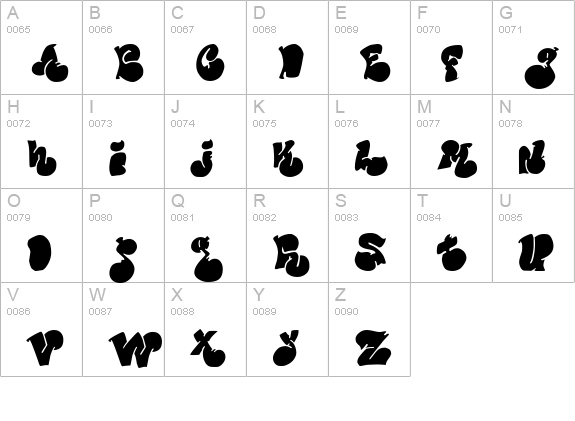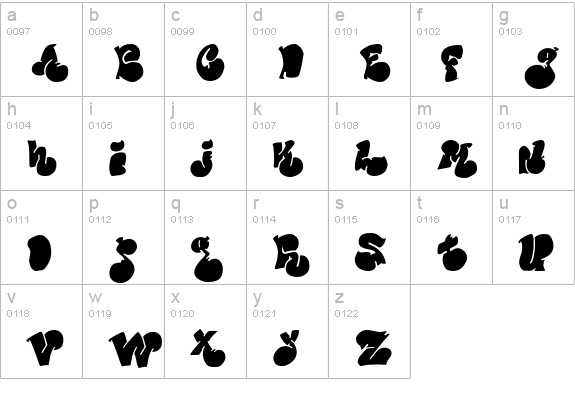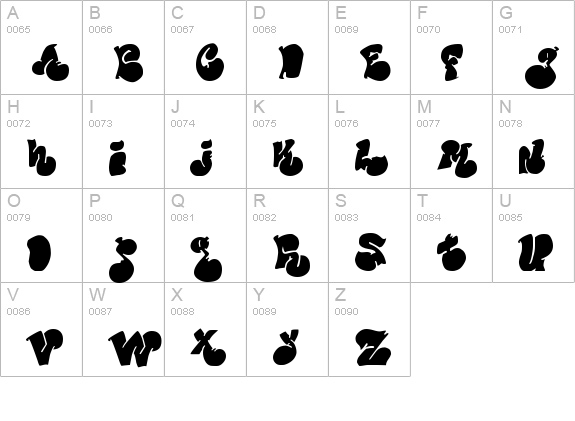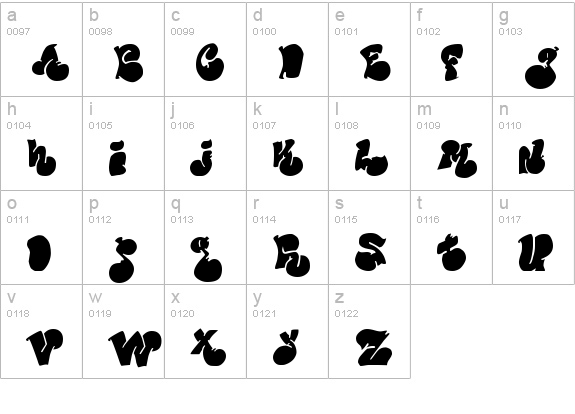
Political Graft Fill Font Details
Political Graft Fill font is a bold and eye-catching typeface designed for making a powerful statement with your text. Its unique design combines elements of modernity and tradition, making it suitable for a wide range of projects, from posters to logos to social media graphics. The font features intricate details and a strong presence that commands attention. What sets Political Graft Fill font apart is not only its striking appearance but also the fact that it is freely available to download at FontsMarket.com. This means you can add this dynamic font to your design arsenal without any cost, making it a valuable resource for any designer or creative individual looking to make an impact with their text. So go ahead and download Political Graft Fill font today and take your designs to the next level!